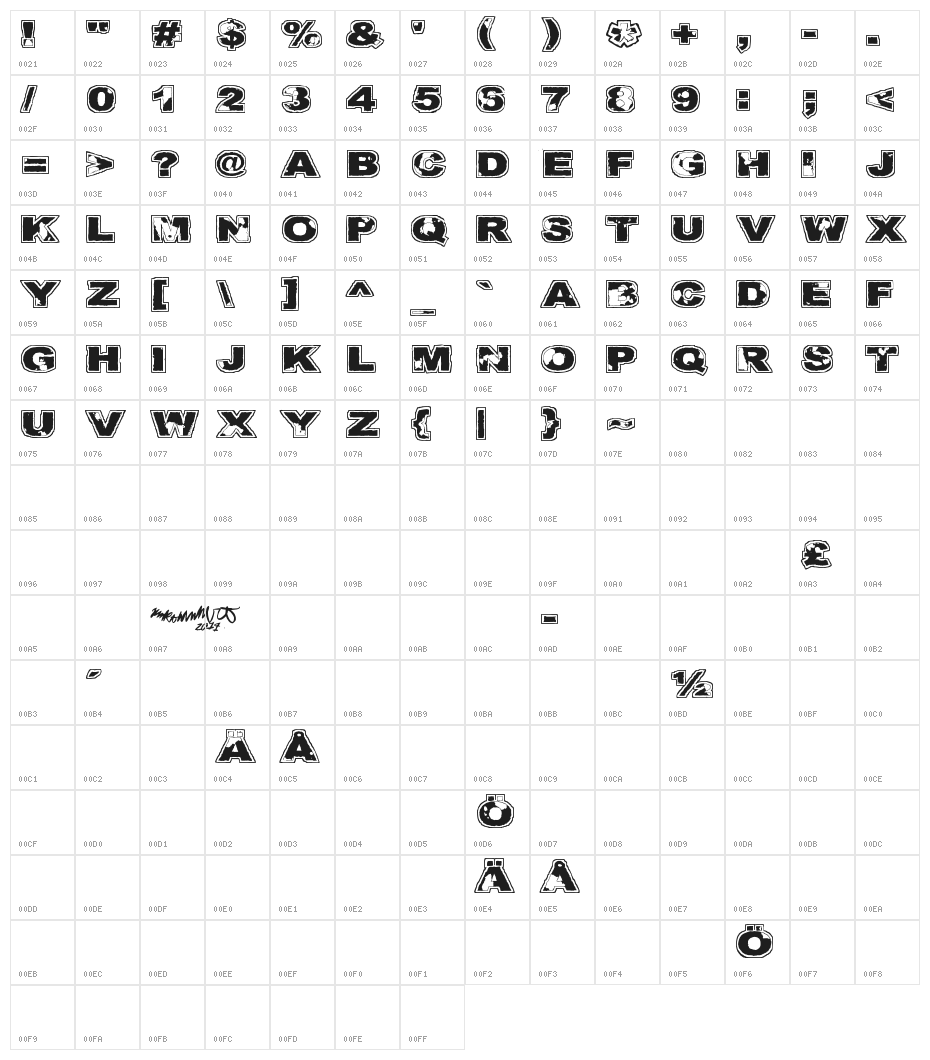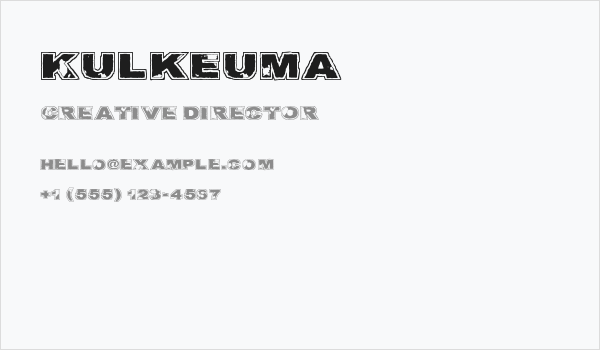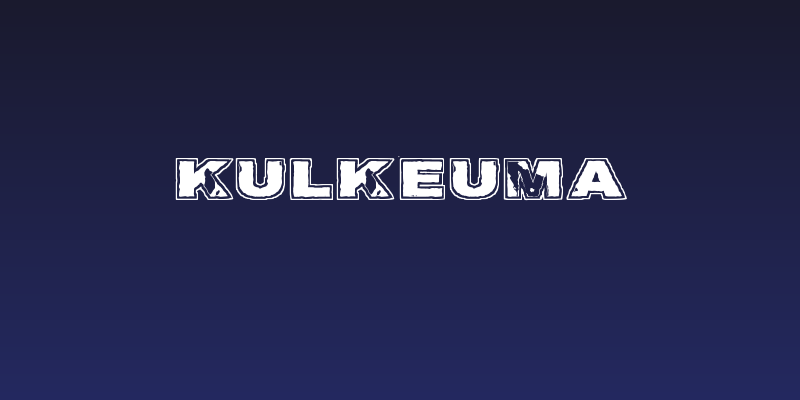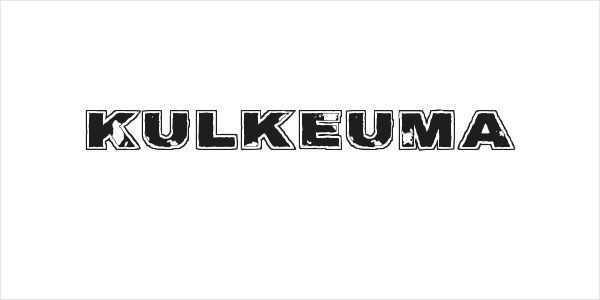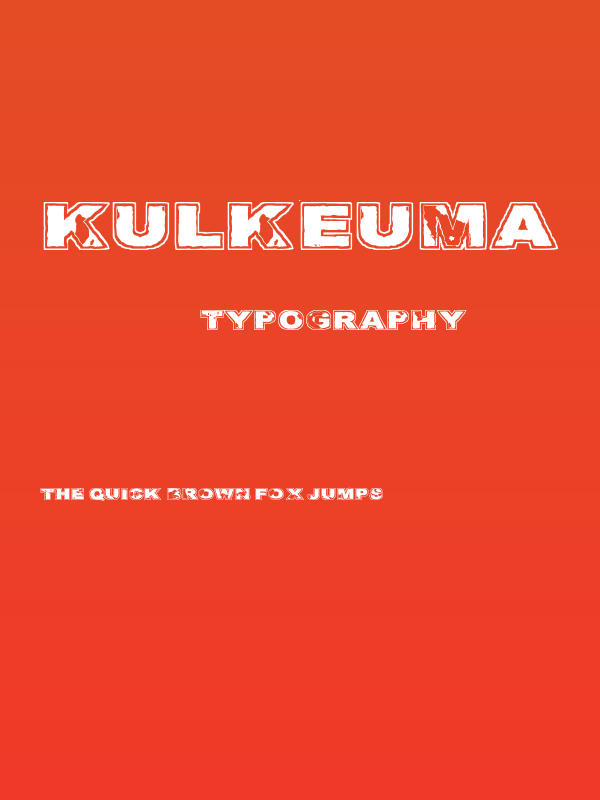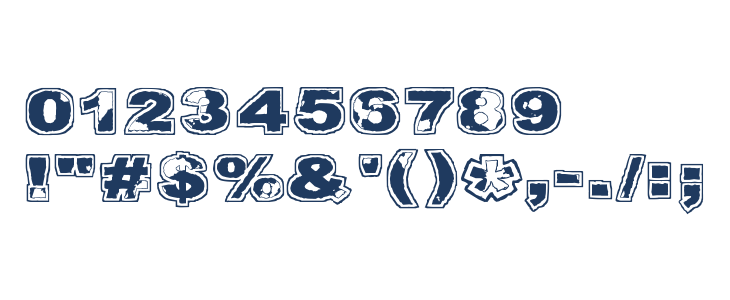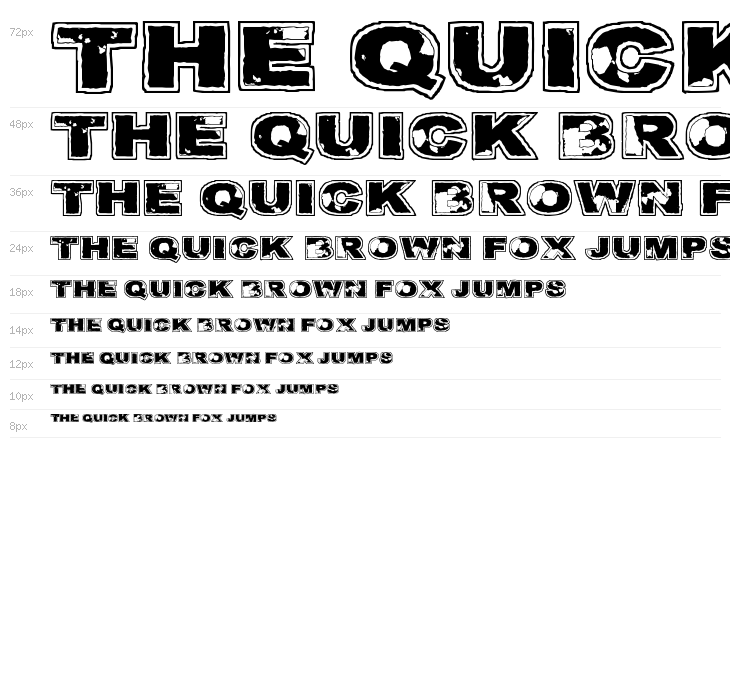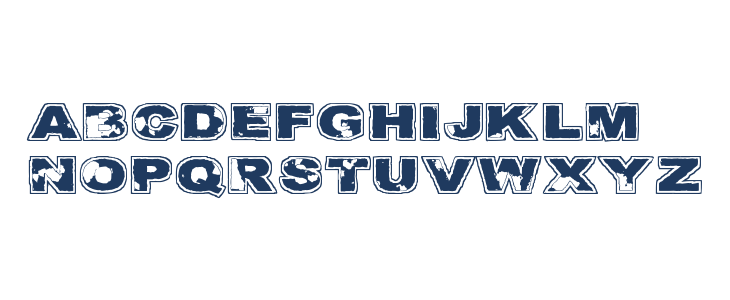
Kulkeuma Font
Kulkeuma Description
This font features a bold, distressed style with a rugged, textured appearance. Each character is filled with a rough, uneven pattern that gives it a worn, vintage look. The letters are uppercase and have a strong, impactful presence, making them ideal for attention-grabbing designs. The numbers and special characters maintain the same distressed aesthetic, ensuring consistency across all glyphs. The font's unique style makes it suitable for projects that require a bold, gritty, and artistic touch.
| Proposed Projects | Ideal for posters, album covers, branding for edgy products, or any design that requires a bold, artistic statement. |